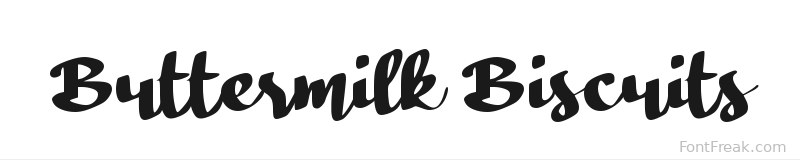
Buttermilk Biscuits
About Buttermilk Biscuits
Buttermilk Biscuits, crafted by Wahyu Eka Prasetya, is a captivating handwritten font that brings a warm, inviting touch to any design project. This font embodies a playful yet elegant vibe, making it ideal for a range of creative applications. Its fluid strokes and charming curves showcase a medium stroke weight, ensuring readability while maintaining an artistic flair. The moderate contrast between thick and thin lines adds depth to the letters, enhancing their visual appeal. The irregular spacing further contributes to its handwritten quality, making each character feel unique and personal.
This versatile font excels in various use cases. It is particularly well-suited for crafting wedding invitations, where its whimsical style can evoke romance and joy. Additionally, Buttermilk Biscuits can elevate restaurant menus, creating a friendly and approachable atmosphere for diners. Graphic designers may find it perfect for social media graphics, giving a personal touch that resonates with audiences. It is also an excellent choice for branding projects, where small business owners can use it to convey authenticity and warmth in their marketing materials.
What sets the Buttermilk Biscuits font apart is its unique blend of charm and versatility. Whether used in formal invitations or casual branding, it maintains a delightful balance that draws attention while still being highly functional. For those seeking a distinctive typeface that stands out, the Buttermilk Biscuits font free download offers an excellent opportunity to enhance any design project with a touch of warmth and whimsy.